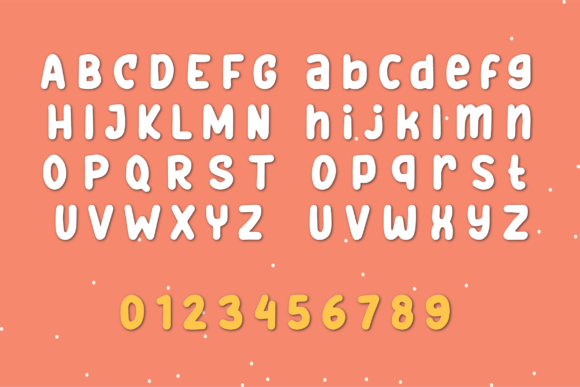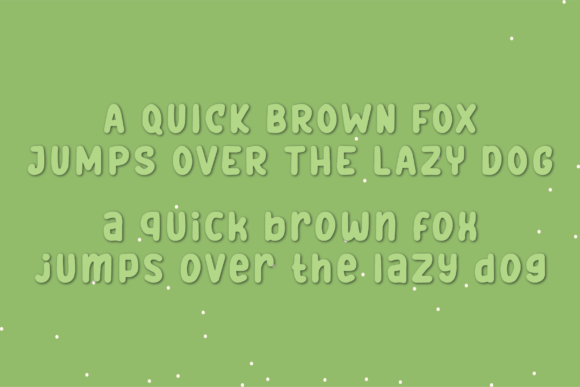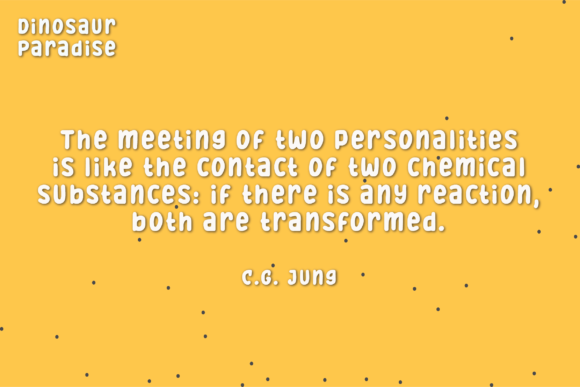
About Dinosaur Paradise Font
Dinosaur Paradise is a beautiful and attractive handwritten font. It has a modern yet whimsical style and it will undoubtedly immerse your designs into a magical world.